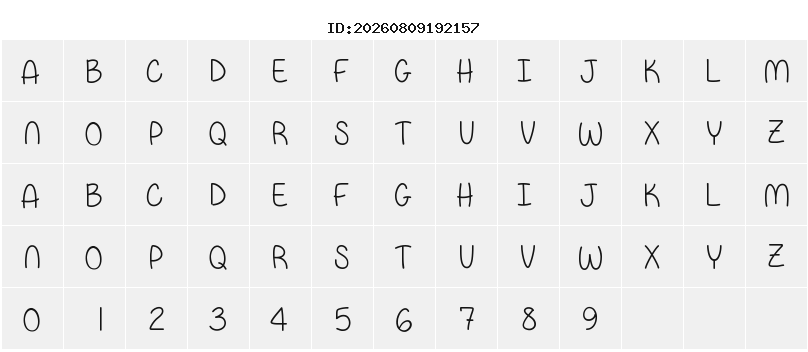
Papa Bear Preview
• Font Name: Papa Bear
• Full Font Name: Papa Bear
About Papa Bear.ttf
Papa Bear.ttf is a modern, elegant sans-serif font designed for ultimate readability and visual harmony. Perfect for branding, headlines, web design, and print materials.